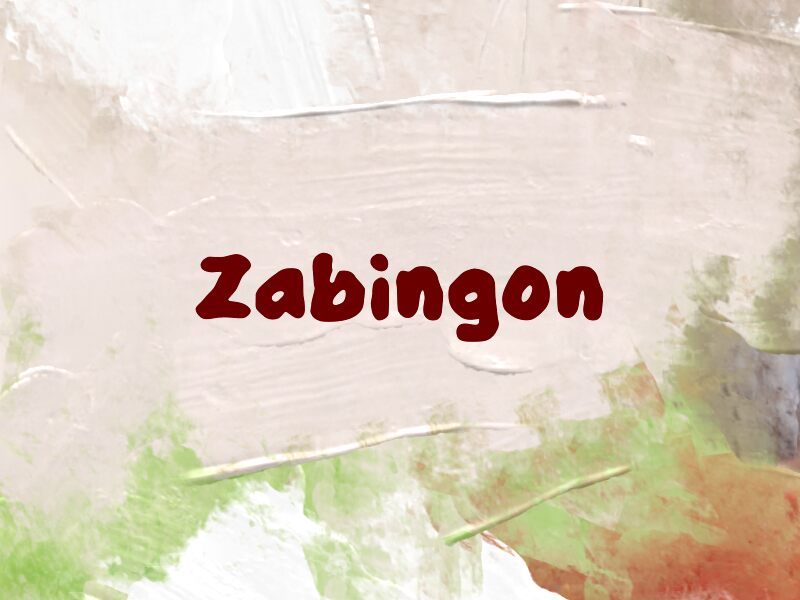
Zabingon
Zabingon font by wepfont.com is a free cartoon display typeface with the bouncy, inky charm of marker lettering. Its chunky, rounded shapes and slightly wobbly rhythm feel hand-squeezed onto the page, like letters puffed up from wet paint. The solid black forms and tight inner curves give Zabingon a bold, candy-coated presence that reads instantly playful without becoming messy or chaotic.
Using Zabingon, this free font shines on kids’ book covers, playful logos, snack or toy packaging, YouTube thumbnails, comic titles, and game interfaces. It grabs attention fast, then holds it with its soft, approachable texture that feels friendly on screen and in print. For body copy or smaller details, pair Zabingon with a simple rounded sans serif, keeping Zabingon big and bold for headlines so its bubbly personality can really pop.